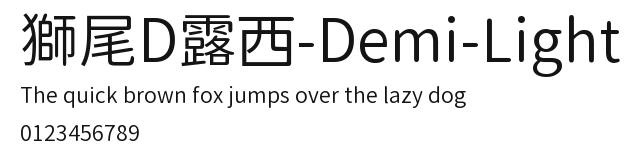
獅尾D露西-Demi-Light Preview
• Font Name: 獅尾D露西-Demi-Light
• Font Style: Demi-Light
• Full Font Name: 獅尾D露西-Demi-Light
• Character Count: 44521
About 獅尾D露西-Demi-Light.ttf
獅尾D露西-Demi-Light.ttf is a modern, elegant sans-serif font designed for ultimate readability and visual harmony. Perfect for branding, headlines, web design, and print materials.